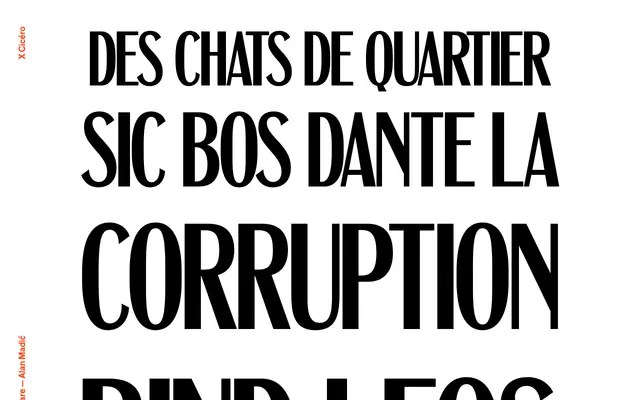
Cesare
A display serif from the X Cicéro student foundry, built for large-scale headline use with a bold, graphic character.
Cesare presents a display serif with strong contrasts and a graphic sensibility suited to poster and editorial applications. The available specimen shows the typeface at large sizes across mixed-case settings, suggesting a focus on visual impact over extended text use. Released through X Cicéro, the type programme of ESAD Grenoble-Valence.
The letterforms shown are large-scale, highly stylised serif characters intended for headline or display use, with no indication of text-weight variants.